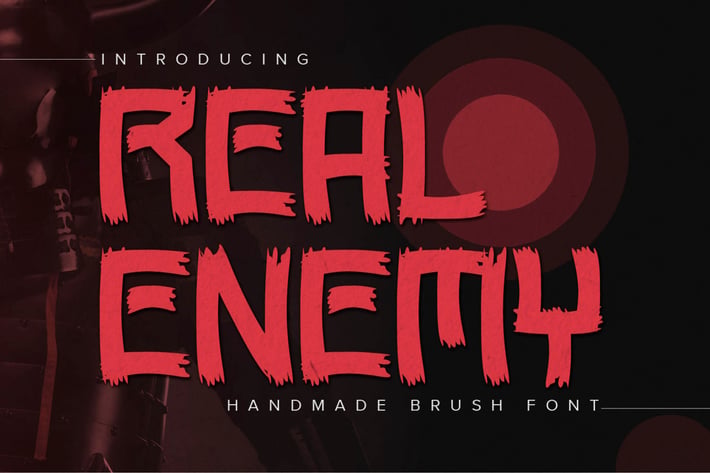
Real Enemy - Handmade Brush Font
Real Enemy - Original Handmade Brush Font is an Authentic brush Font that is written casually and quickly.
Letters are made with Procreate. Then trace down into vector format, and carefully crafted into a typeface.
That is why Real Enemy has a rough, authentic, and strong characteristic more natural look.
Real Enemy Perfect for designs, branding projects, Logo design,
Quotes product packaging and another Project that require cool strong brush font.